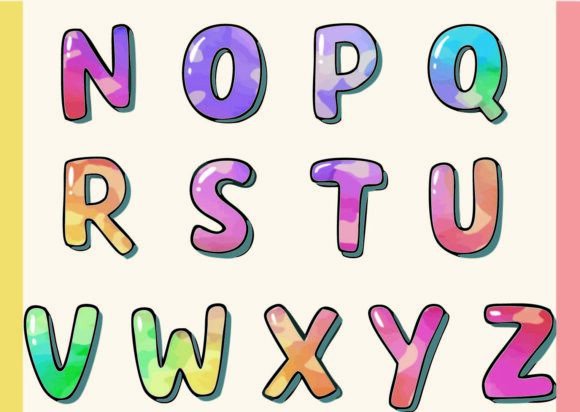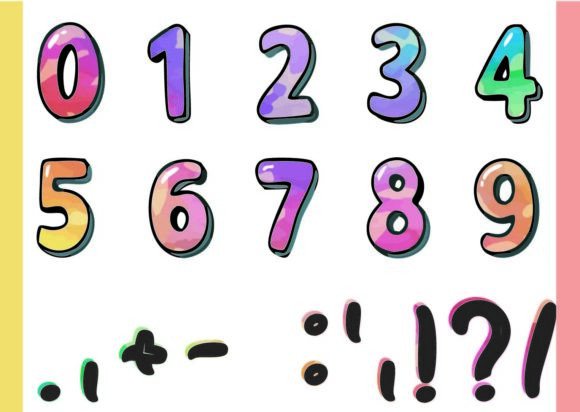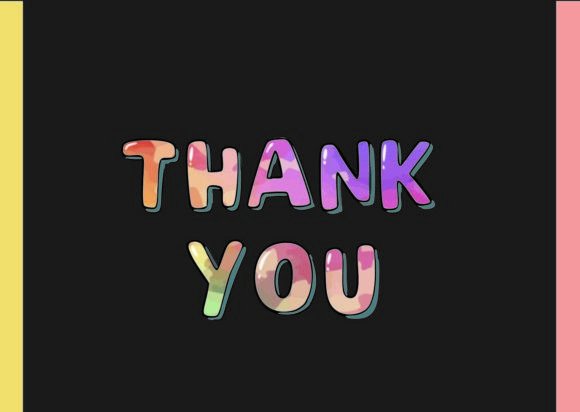
Introducing Emory Font: A Colorful Heaven for Designers and Crafters
Are you tired of traditional fonts and looking for something that can add a pop of color to your designs? Look no further than the Emory Font, a stunning color font that is sure to take your typography to the next level. In this article, we’ll dive into the world of Emory Font, exploring its unique features, compatibility, and uses, making it a must-have for designers and crafters alike.
A Colorful Heaven: Unique Features of Emory Font
What sets Emory Font apart from other fonts is its innovative use of color. Every single glyph has a different set of colors, creating a vibrant and playful effect that is sure to capture the attention of your audience. If you look closely at the glyphs, you’ll notice complex sets of paths and connections in every single one of them, making each glyph a typographic painting in its own right.
This level of detail and craftsmanship is rare in font design, and Emory Font is truly a masterpiece. The font’s creator has pushed the boundaries of typography, combining art and design to create a truly unique product.
Compatibility: Using Emory Font with Your Favorite Design Tools
Endless Creative Possibilities: Using Emory Font in Your Designs
So, what can you do with Emory Font? The possibilities are endless! Here are a few ideas to get you started:
• Custom signs and banners: Add a pop of color to your signs and banners with Emory Font.
• Social media graphics: Create eye-catching social media graphics that stand out from the crowd.
• Branding and packaging: Use Emory Font to add a touch of personality to your brand’s packaging and marketing materials.
• Crafting and scrapbooking: Perfect for crafters and scrapbookers who want to add custom text to their projects.
Whether you’re a professional designer or a hobbyist, Emory Font is sure to inspire your creativity and take your designs to the next level.